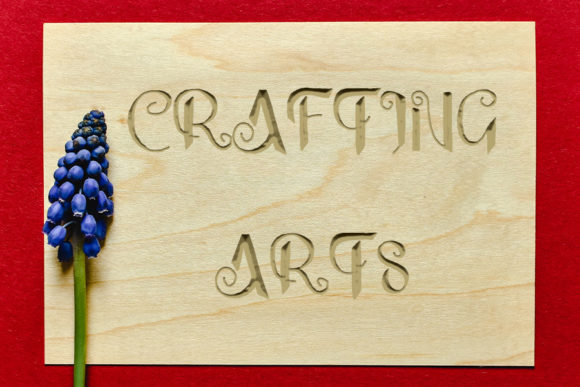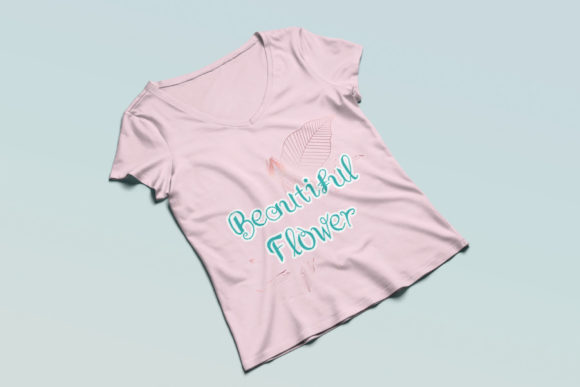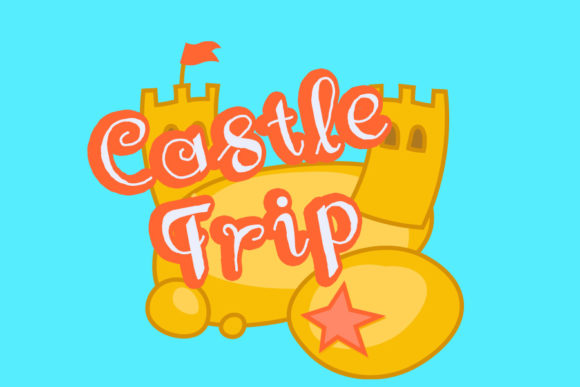
Introduction to Hello Vervalle Font
Hello, Vervalle is a fun and chunky-lettered serif font, featuring lovely, curly ornaments.
This original look will appeal to a wide range of crafty ideas, from letterheads and titles, to stationery .
Hello Vervalle Font offers exceptional quality and versatility, making it a valuable addition to your design toolkit. Whether you’re creating for personal projects or commercial use, Hello Vervalle Font delivers professional results.